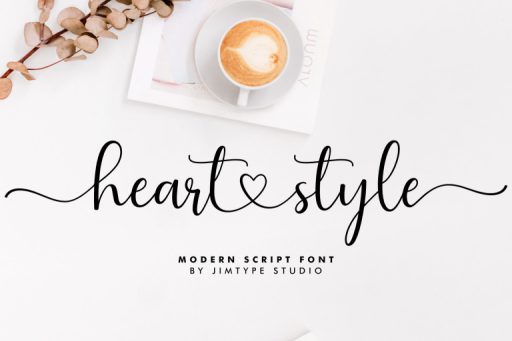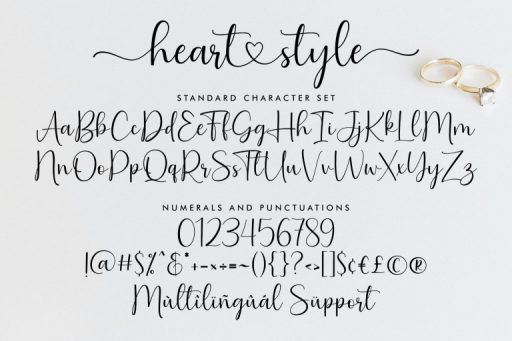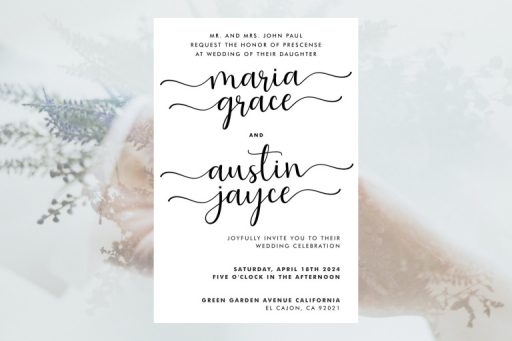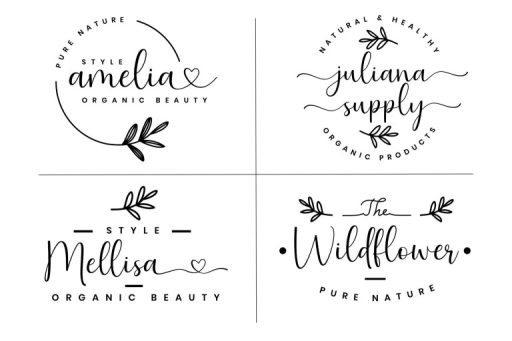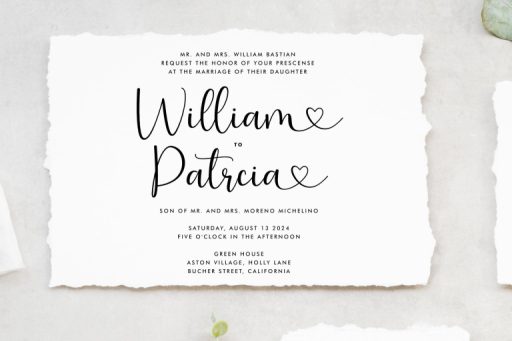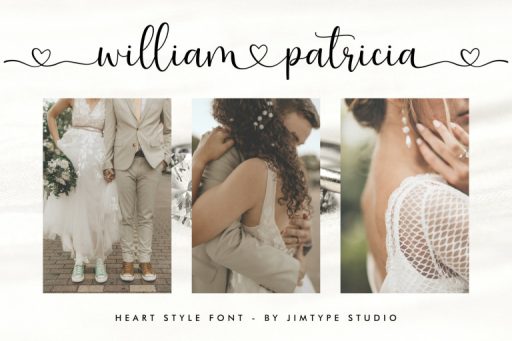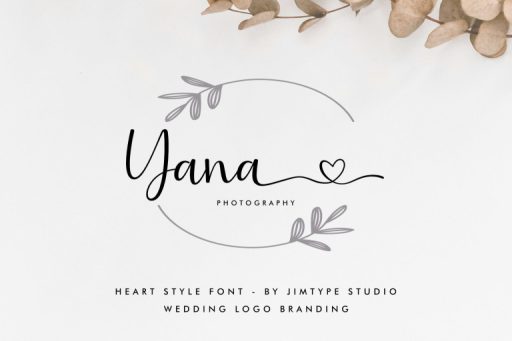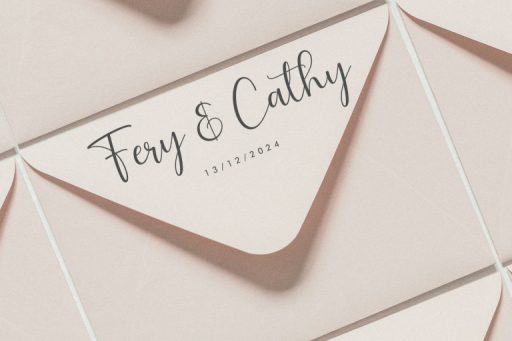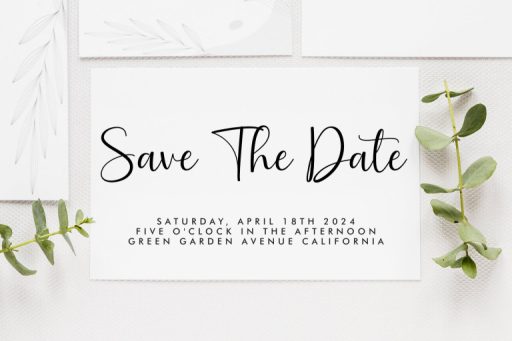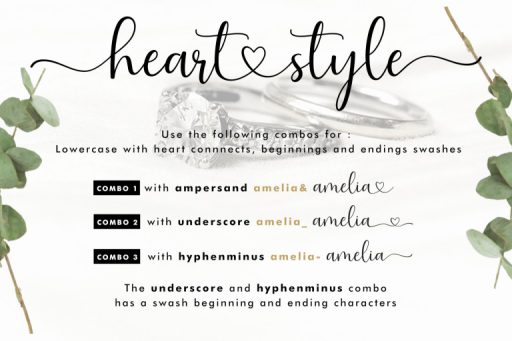
Heart Style - Wedding Branding Font from Jimtype Studio
Heart Style
Heart Style - Heart
Heart Style - Tail
Heart Style - Tail Heart
Heart Style – Wedding Branding Font from Jimtype Studio
Elevate your wedding and branding projects with the enchanting “Heart Style Font.” This script font seamlessly blends elegance and romance, making it the perfect choice for wedding invitations, heartfelt messages, and distinctive logo branding.
Whether you’re crafting a wedding masterpiece or building a brand that speaks volumes about love and connection, the Heart Style Font is your artistic. Imbue your projects with the essence of romance and refinement—choose Heart Style Font for a truly captivating design experience!
Use the following combos for :
lowercase heart connect
type: a& (lowercase letter ampersand)
For example: amelia&amanda
lowercase beginning and ending swash
type: -a or a- (hyphenminus lowercase letter or lowercase letter hyphenminus)
For example: -amelia- -amanda-
lowercase beginning and ending swash with heart
type: _a or a_ (underscore lowercase letter or lowercase letter underscore)
For example: _amelia_ _amanda_
You can also combine swash beginning and ending with heart connect, with a combo
For example: -amel&lia-
(hyphenminus lowercase letter ampersand lowercase letter)
• Swashes heart connections
• Beginning and ending swashes characters